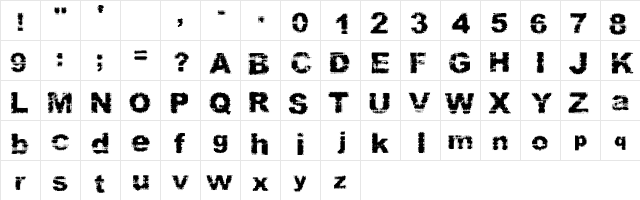
Prefix Endangered
Style: Endangered
Prefix Family
Prefix Endangered
Design Context for Prefix
Prefix is a composed and adaptable typeface that performs quietly and consistently across a wide range of design contexts.